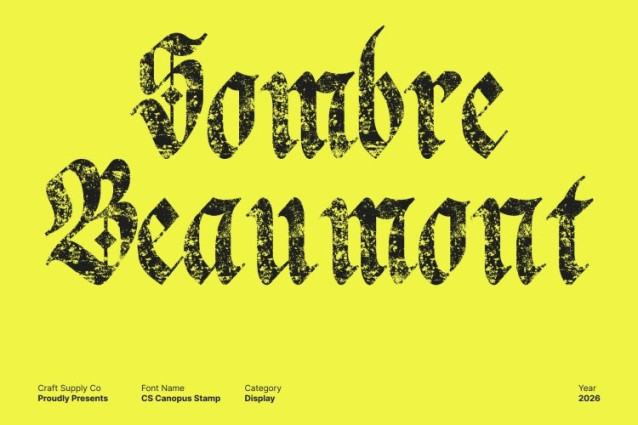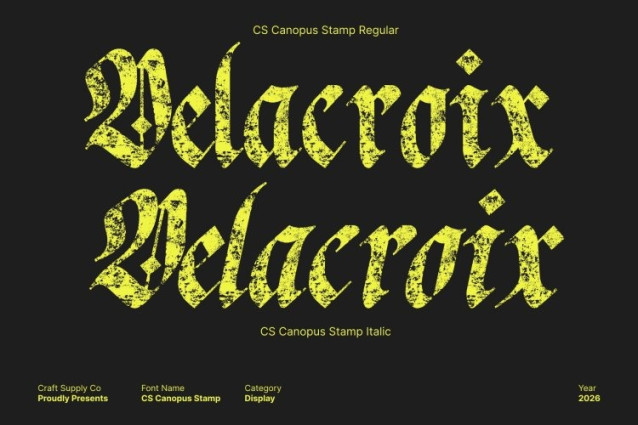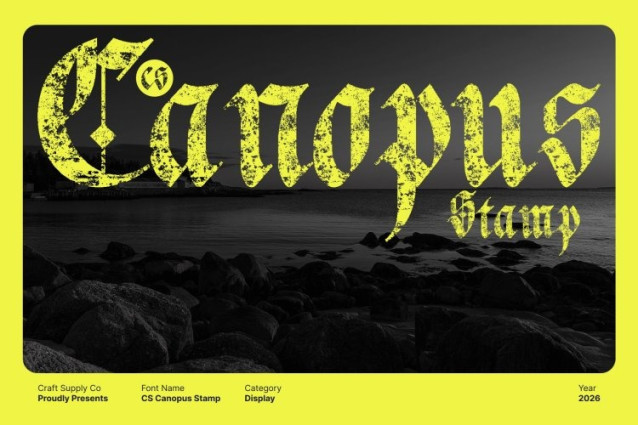
CS Canopus Stamp Font
CS Canopus Stamp Font This is a display serif font rooted in the Blackletter Old English tradition, enriched with a distinctive stamp texture. Its thick strokes, sharp angles, and intricate gothic details reflect the richness and formality of classic typography, while the stamped effect introduces an aged, handcrafted character inspired by historical print and traditional craftsmanship.
Authority, Elegance, and Aged Character
Designed to convey strength and prestige, delivers a bold and authoritative presence. The vintage stamp texture adds depth and authenticity, evoking the feel of old manuscripts, ceremonial prints, and traditional emblems. This combination enhances the font’s elegance while reinforcing its timeless and dignified tone.
Perfect for Formal, Vintage, and Cultural Design
Ideal for formal invitations, historical-themed projects, book titles, logos, posters, certificates, and cultural branding, this font excels in designs that demand gravitas and classical beauty. Its gothic structure and textured finish ensure a commanding visual identity with historical significance.
A Timeless Typeface with Authentic Gothic Soul
Blending traditional Old English blackletter forms with an expressive stamp texture, offers a powerful typographic voice. It is a perfect choice for designers seeking a font that feels authoritative, ornamental, and deeply rooted in classic heritage while remaining visually striking and memorable.